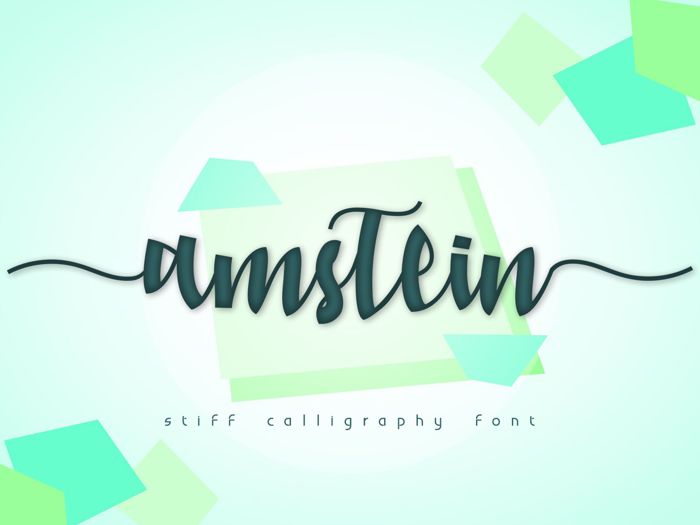
amstein Font
Amstein is a delicate, elegant and flowing handwritten font. It has beautiful and well balanced characters and as a result, it matches a wide pool of designs. Add it to your most creative ideas and notice how it makes them come alive!